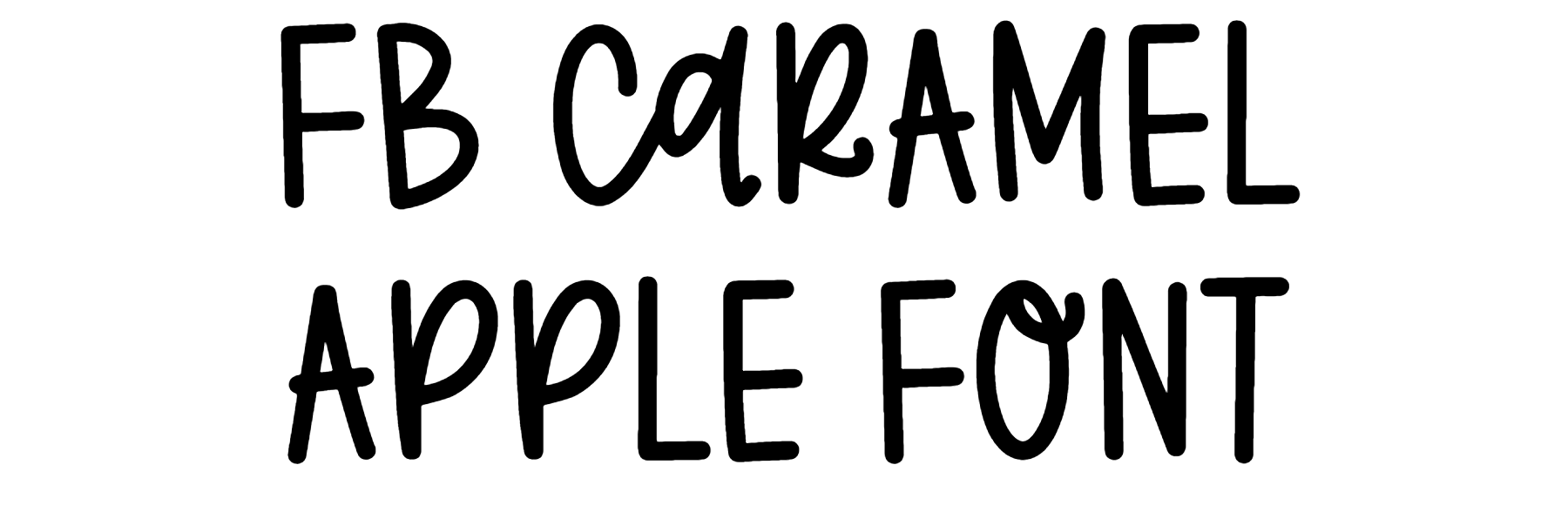
FB Caramel Apple
FB Caramel Apple is a handwritten font. It has a casual, written-with-a-pen look that makes designs feel personal. You can download it for free and test it with your own words in the preview above.
FB Caramel Apple covers the full alphabet in upper and lowercase, plus all ten numbers, so you can set names, dates and prices without switching fonts. Everyday marks like &, !, ? and @ are there too. There are no accented letters like é or ñ, so it's best kept to English text.
Designers usually reach for fonts like FB Caramel Apple when they're making greeting cards, journal pages and friendly social posts. Set it a bit larger than you would a normal text font. Handwriting styles lose their charm once they get too small to read comfortably.
Does FB Caramel Apple have ligatures?
Yes. FB Caramel Apple has ligatures that turn on by themselves in most design apps and browsers, so you don't need to do anything special.
Does FB Caramel Apple support accented letters?
No. FB Caramel Apple has no accented letters such as é, ñ or ü, so it's best for English text.